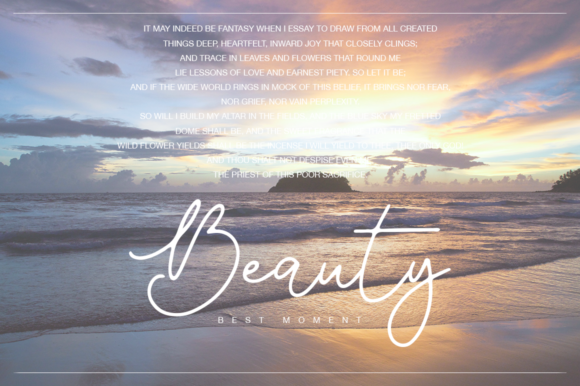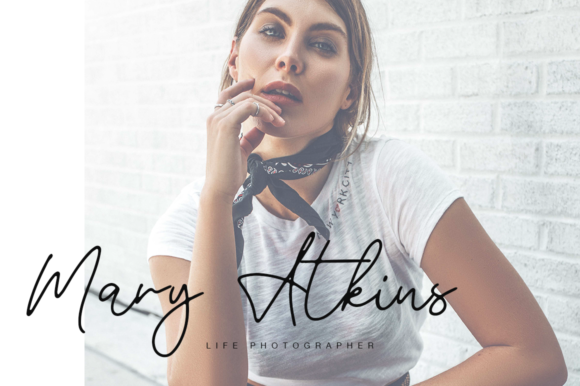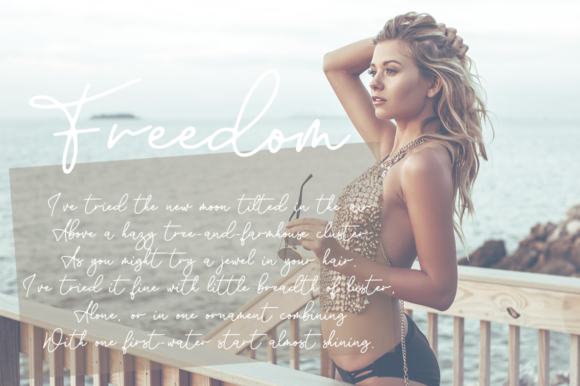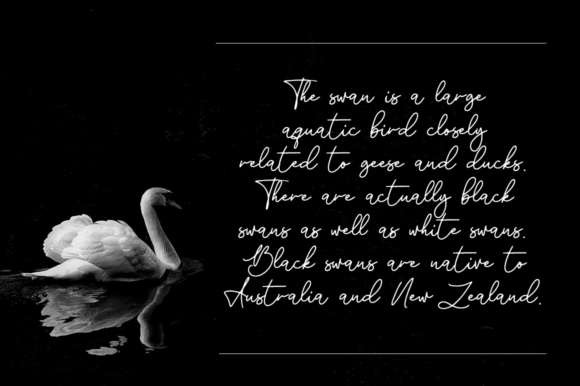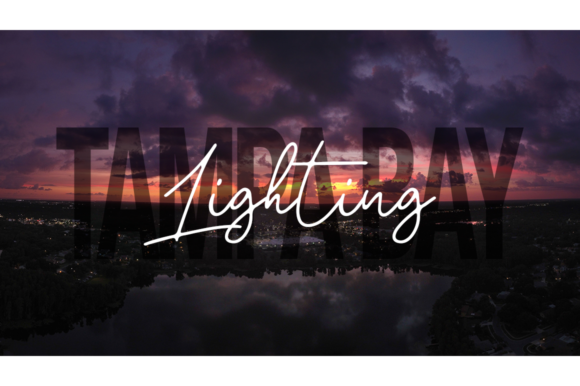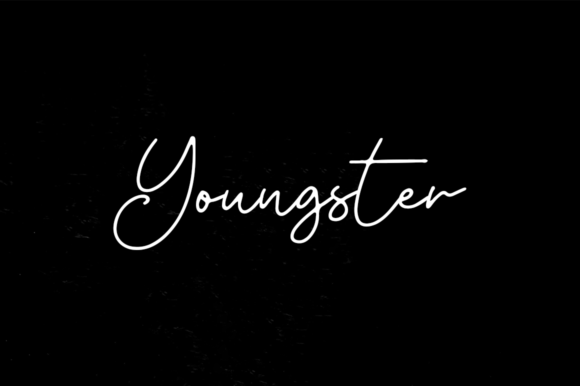
Introduction to Islanders Font
Have you ever stumbled upon a design that made you stop and pause, wishing you knew the secret behind its magic? For designers, this moment is all too familiar – the thrill of discovering a font that elevates a simple idea into a breathtaking work of art. For us, that moment came when we discovered the enchanting Islanders Font.
This magical script font has captured the hearts of creatives everywhere, and for good reason. With its elegant touch and high-quality design, it’s the perfect addition to any creative project. Whether you’re working on a DIY project, crafting a social media post, or designing a new logo, Islanders Font is sure to bring your vision to life.
What sets Islanders Font apart from other design resources is its versatility and ease of use. With a transparent background and free download option, you can seamlessly integrate it into your design workflow. In this article, we’ll delve into the world of Islanders Font and explore its many uses, making it a valuable resource for designers of all levels.
Key Features of Islanders Font
- High-quality, vector-based font for creative projects, suitable for a variety of design resources.
- Includes a large character set, covering multiple languages, making it a versatile design resource.
- Designed to be highly legible, with a clean and modern aesthetic, making it perfect for use in logos, graphics, and other creative projects.
Honest Review: Islanders Font
I recently stumbled upon the Islanders Font and I must say, it’s a great addition to my design resource library. The font is free to download, which is always a plus, and it’s available in high quality, making it perfect for my creative projects.
- ✨ The font has a unique and stylish design that catches the eye.
- ✨ It’s highly customizable, allowing me to tailor it to my specific design needs.
- ✨ The transparent background option gives me flexibility in how I use the font.
Overall, I’m impressed with the Islanders Font. It’s a great resource for designers who need a high-quality font for their creative projects. The fact that it’s free to download is just the icing on the cake.
Design Tips
When using the Islanders Font, keep in mind that it has a transparent background, making it ideal for creative projects that require a clean and modern look. To get the most out of it, experiment with different font sizes, colors, and combinations to create a unique design.
The Islanders Font is suitable for various design projects, including logos, brochures, business cards, and social media graphics. Its clean and modern design makes it an excellent choice for creative projects that require a professional and elegant look.